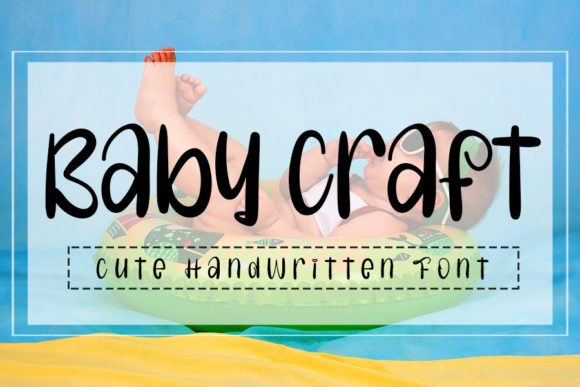
Introduction to Baby Craft Font
Baby Craft is a sweet handwritten font.
It’s playfulness make it great for creative projects, be it inspirational wall posters or for communicating your brand .
Why Choose Baby Craft Font?
Baby Craft Font offers exceptional quality and versatility, making it a valuable addition to your design toolkit. Whether you’re creating for personal projects or commercial use, Baby Craft Font delivers professional results.